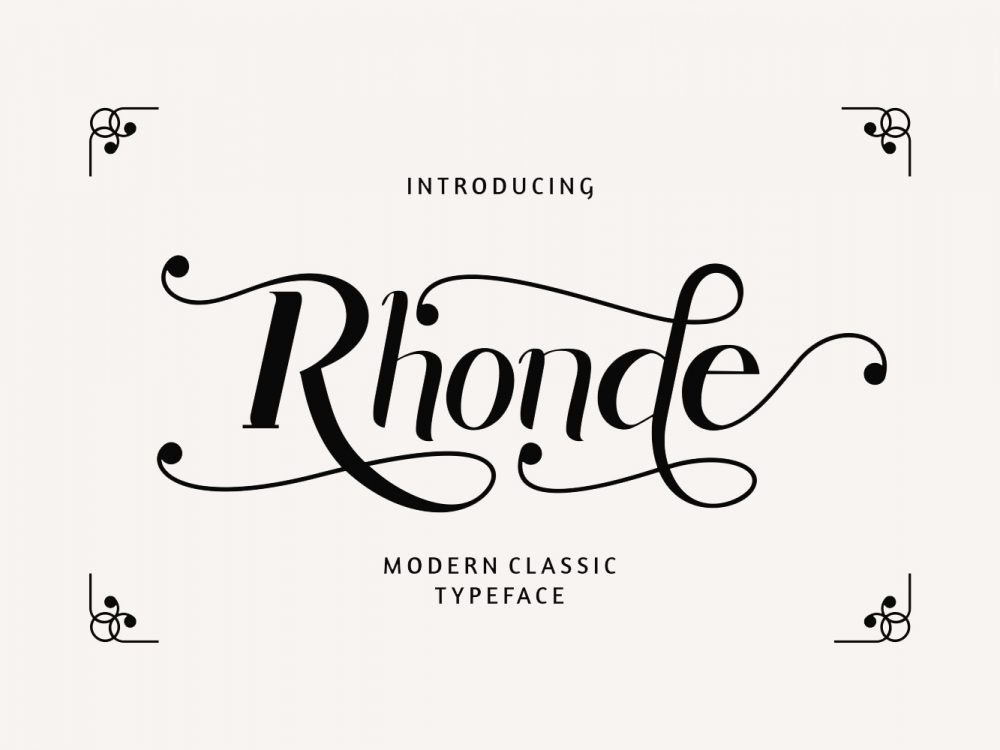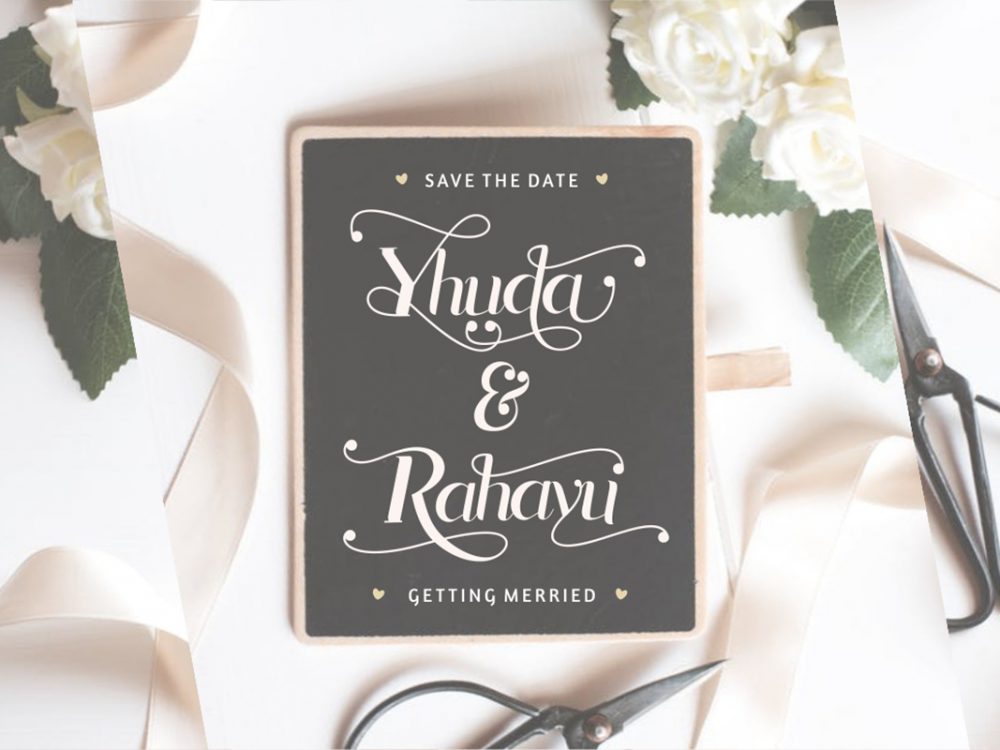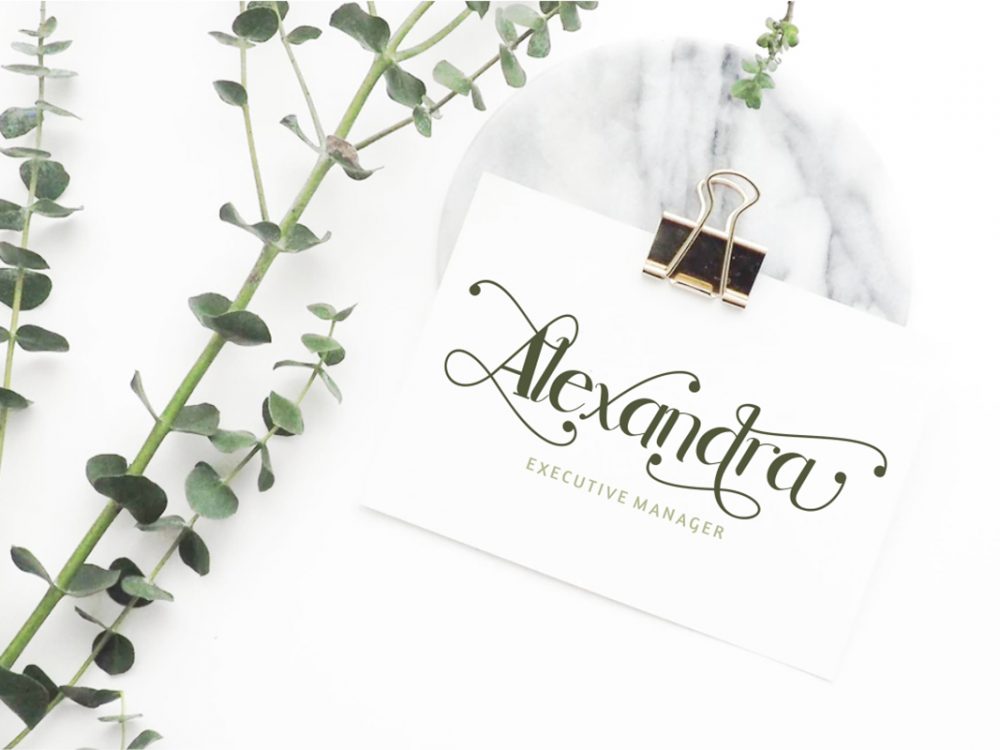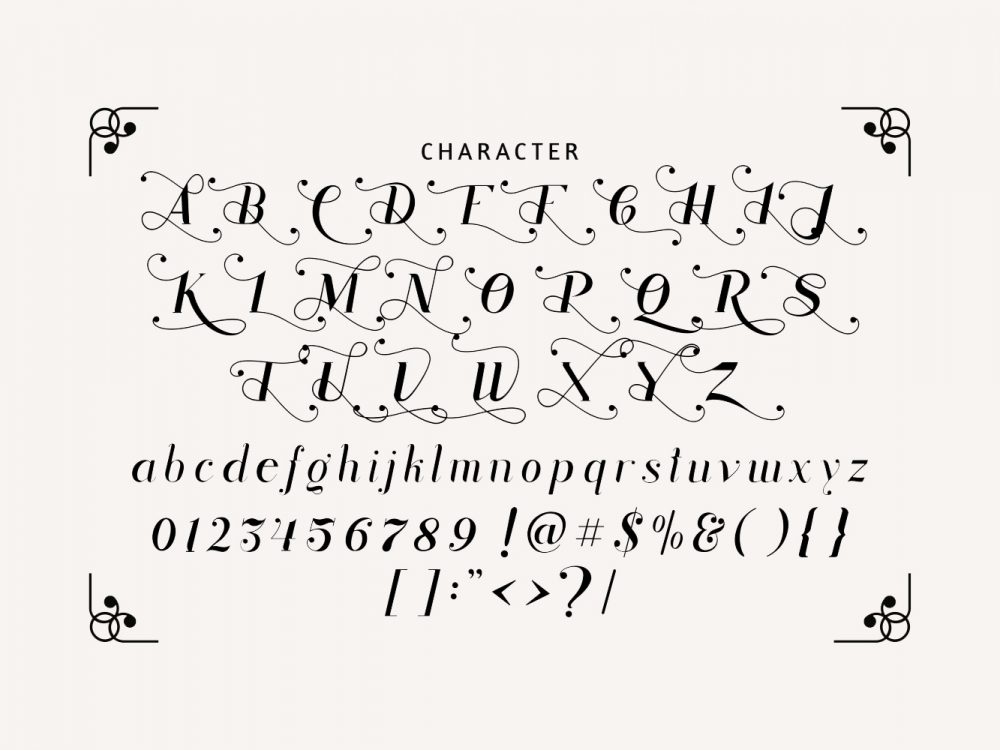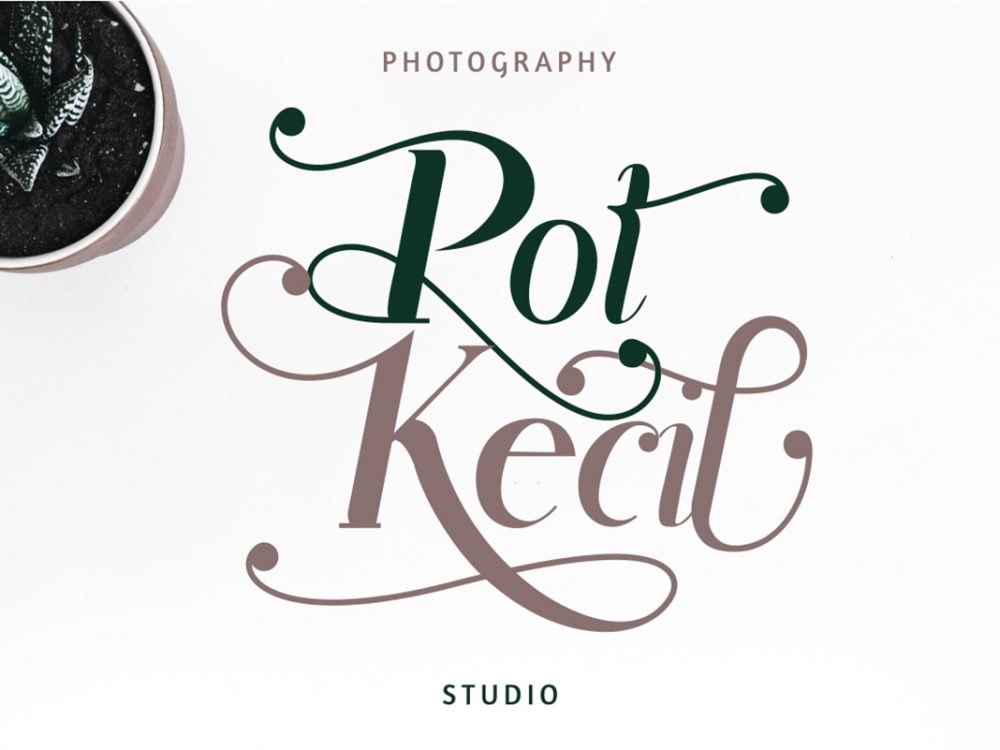
Rhonde Free Font
Rhonde Free Font is a scripted handwritten font that features a modern calligraphic style. This font is well suited for various design projects that require a handwritten script font. You can use this font to create interesting and memorable posters, wedding invitations, cards, branding, flyers, and more. Improve the quality and increase the popularity of your design projects by using this font. If you like it don’t forget to check out the full version.